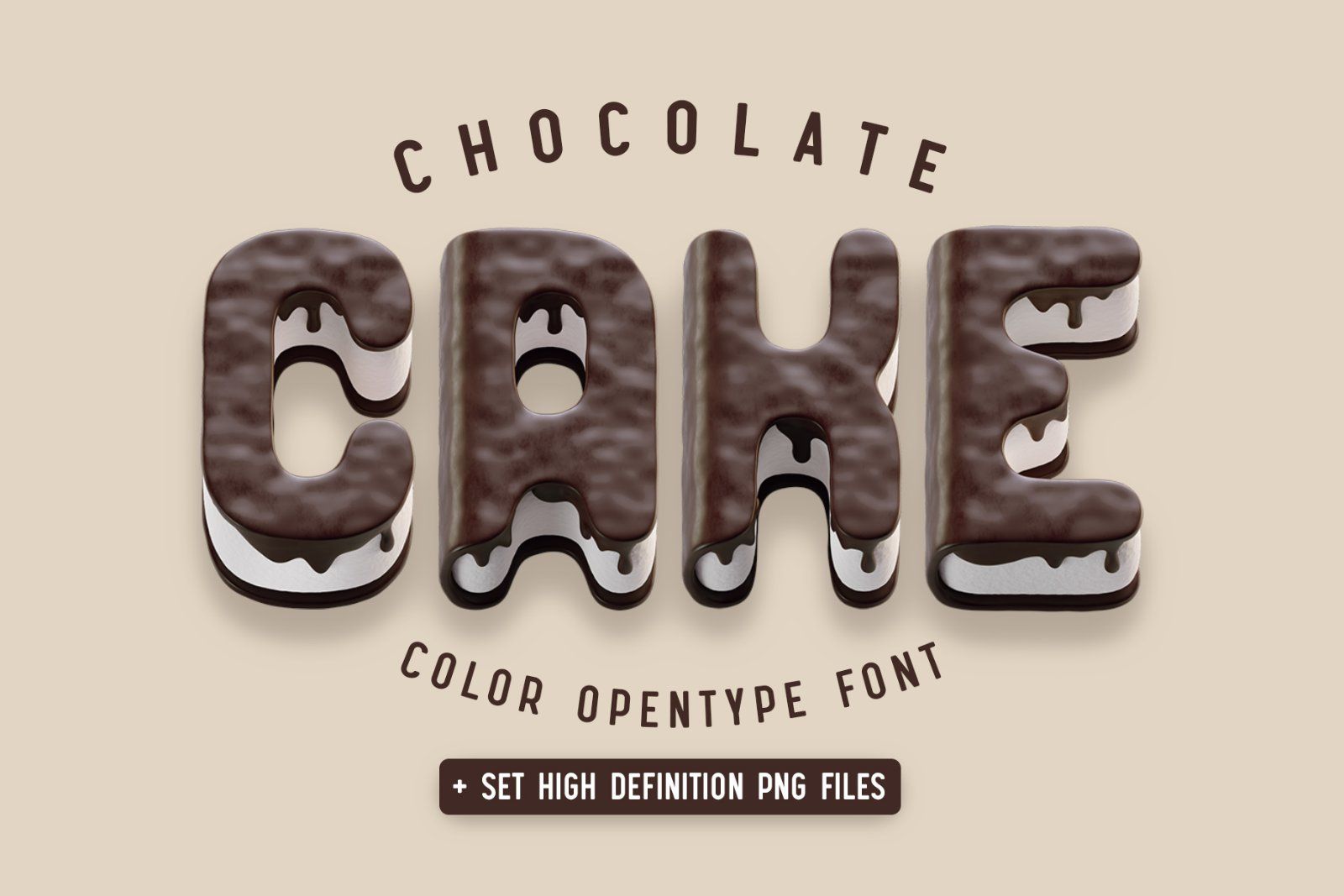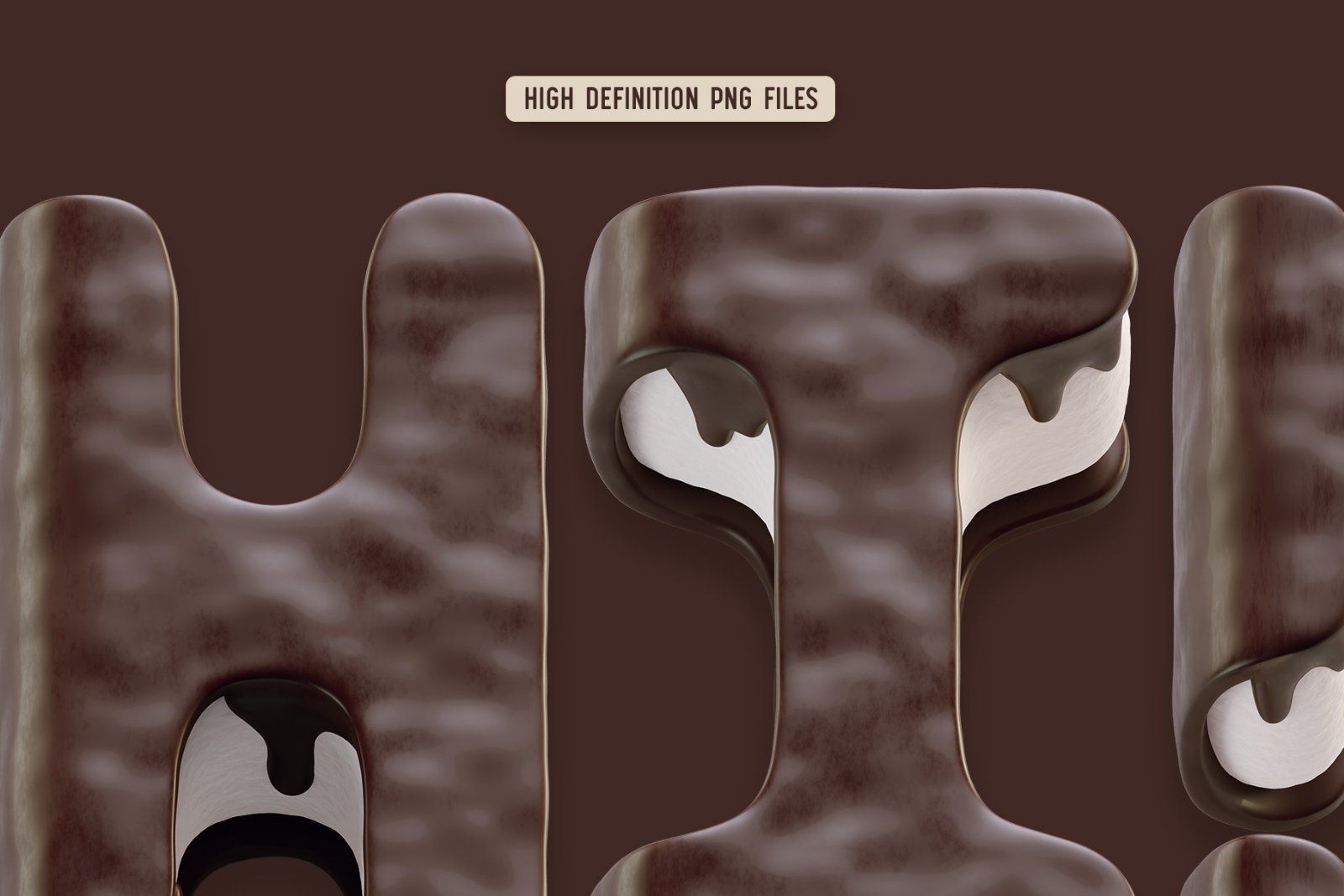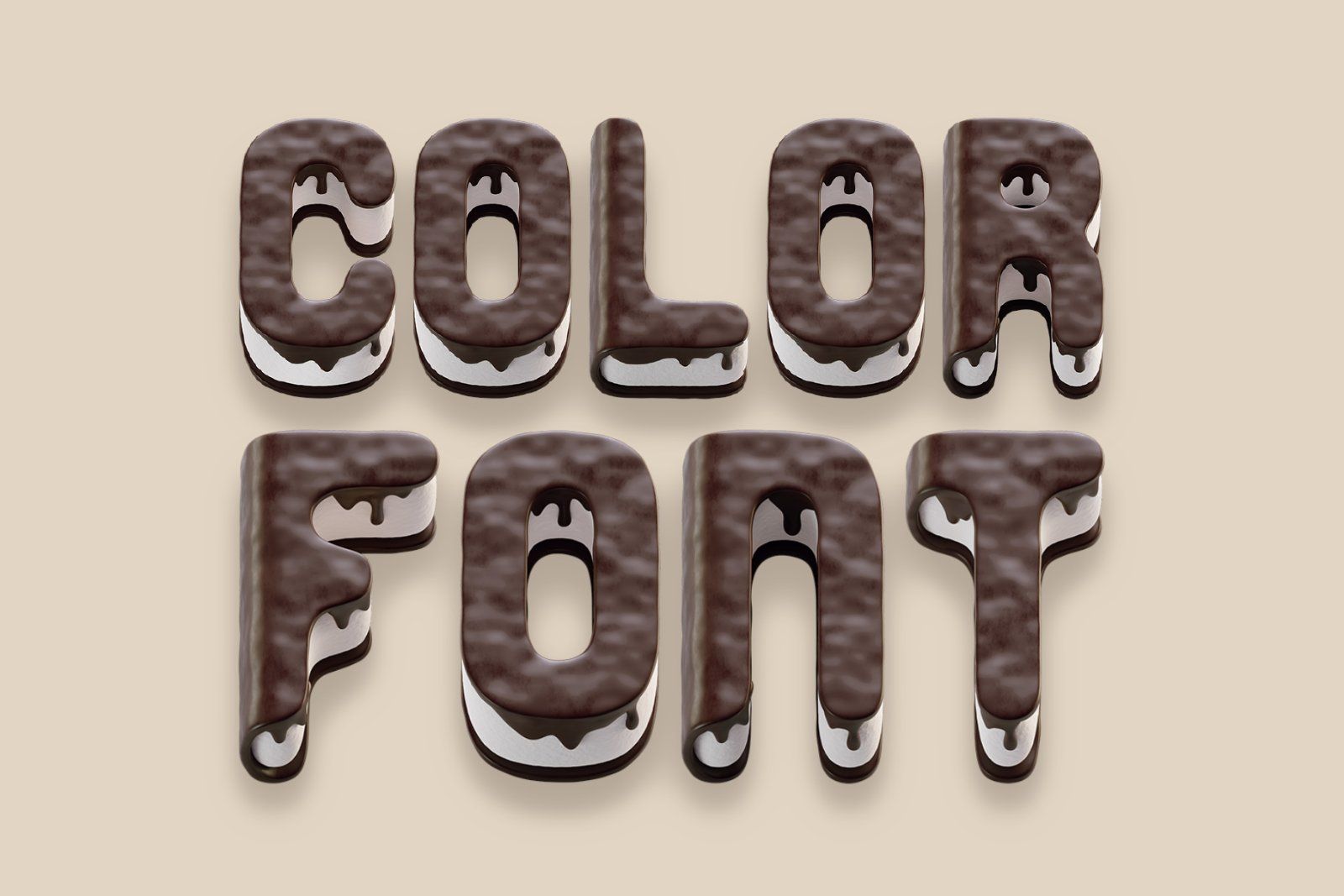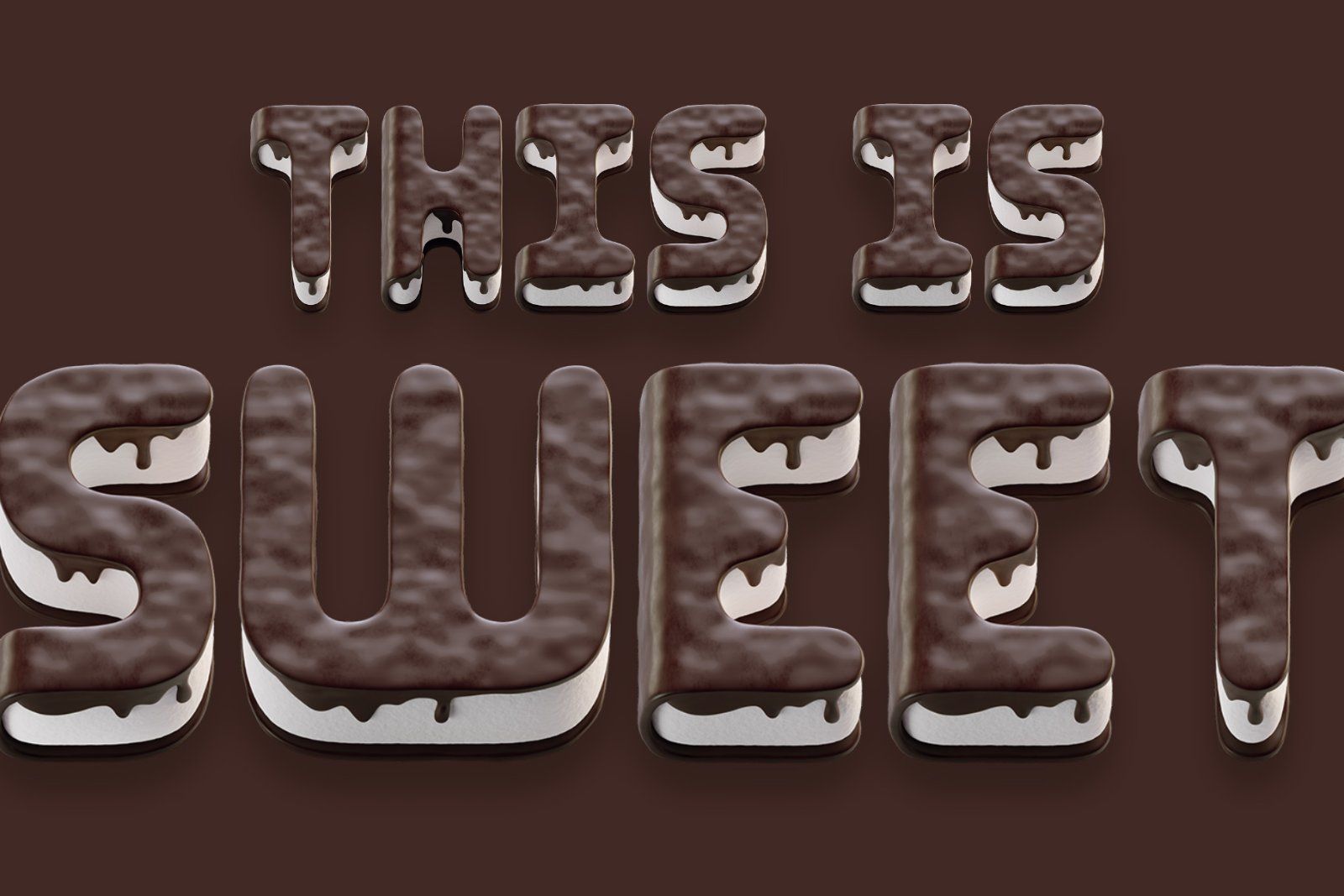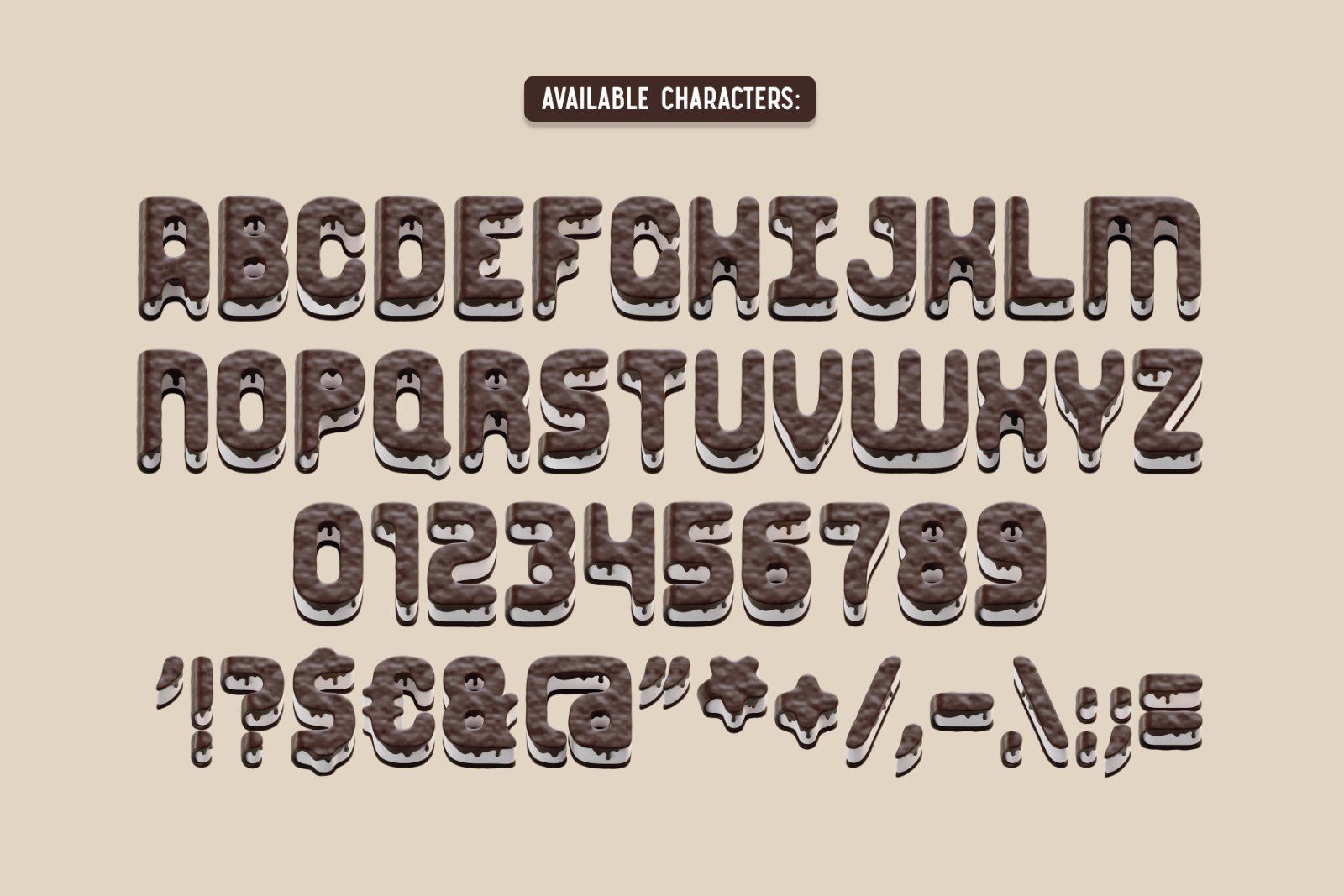
Hello! Presenting a sweet font set – Chocolate Cake. It's a 3d rendered high quality typeface made in shape of chocolate dessert with white cream filling.
First of all it's a color bitmap OpenType-SVG font that can be used as a usual OTF font. Also a set of full resolution PNG files with transparent background is included (Average resoulution is 10 megapixels). Consider that only english language and basic punctuation is supported, please check out the screenshot with all available characters.